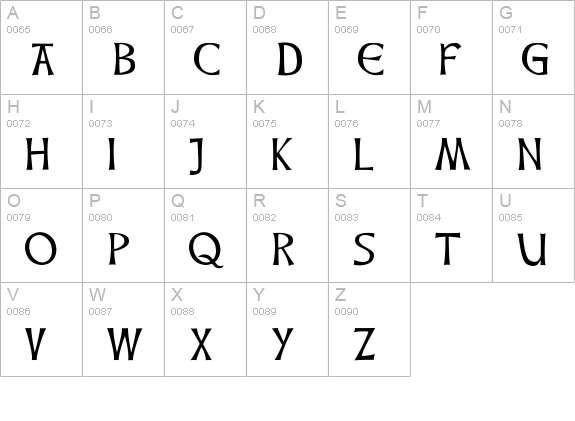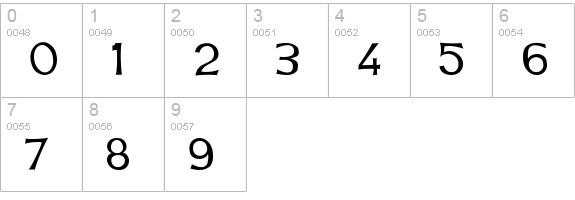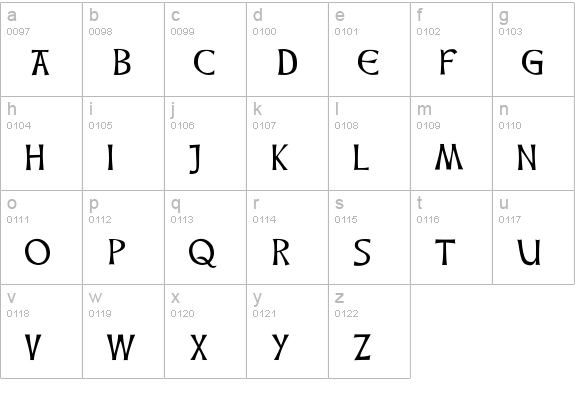
CelticHand Font Details
CelticHand font is a beautifully crafted typeface inspired by Celtic designs and traditional Irish calligraphy. Its intricate details and elegant curves give it a unique and timeless appeal, making it a perfect choice for projects that require a touch of Celtic charm. The fluid strokes and intricate patterns of this font evoke a sense of history and heritage, while also offering a modern and sophisticated look. Best of all, CelticHand font is completely free to download at FontsMarket.com. Whether you're creating invitations, posters, or other design projects, this font will add a touch of elegance and personality to your work. Embrace the rich history and artistic beauty of Celtic culture with CelticHand font, and let your creativity shine.